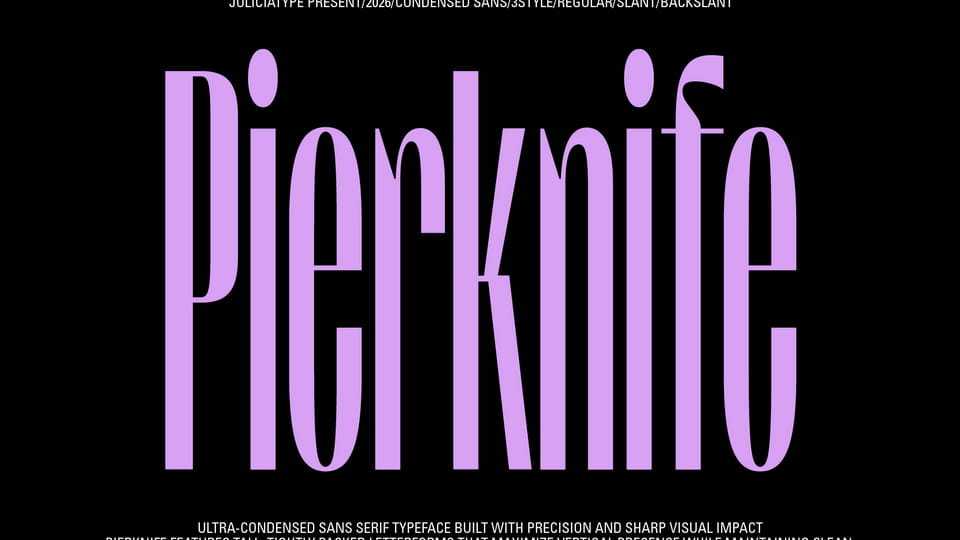
Download Pierknife font, a thin ultra condensed sans serif typeface built with precision and character. It moves effortlessly between modern minimalism and vintage expression.